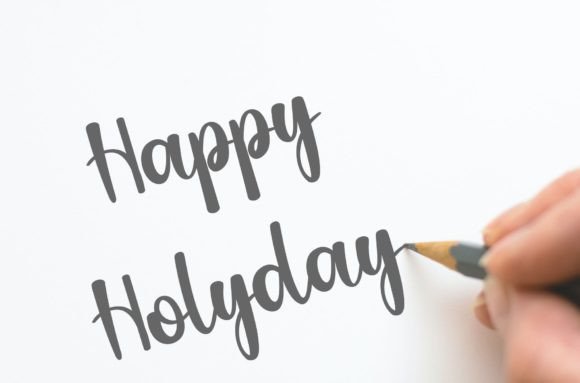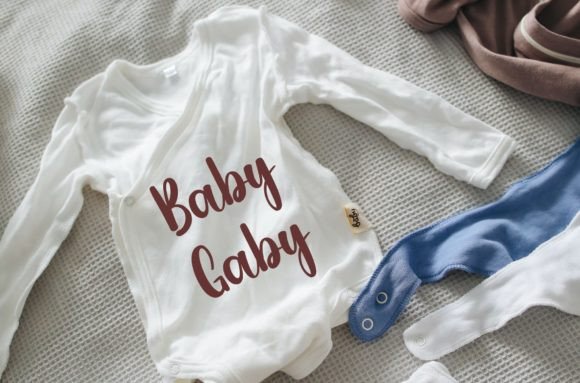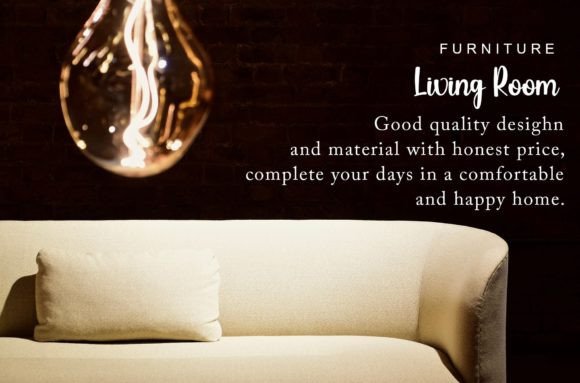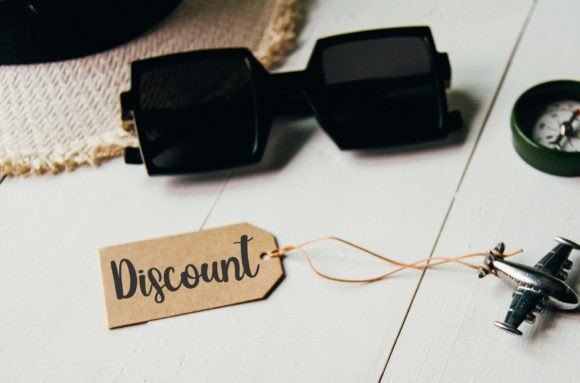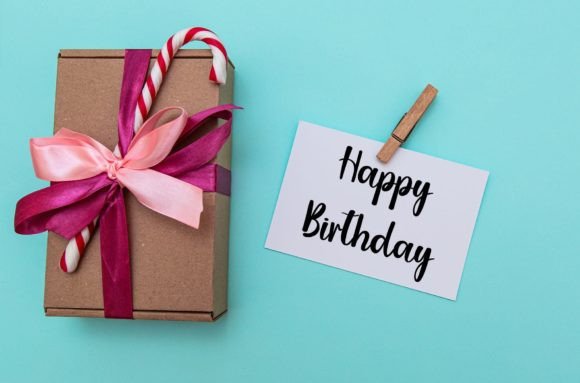
Pillow Font
About Pillow Font
“Pillow” is a delightful and friendly handwritten font that brings a sense of charm and uniqueness to your creative projects. With its playful style and warm appeal, this font transforms any design idea into a standout piece, inspiring creativity and infusing a touch of loveliness.
The distinctive charm of “Pillow” is evident in its handwritten strokes, creating an inviting and approachable aesthetic. Its friendly demeanor makes it a versatile choice for a variety of design applications, allowing you to explore different creative possibilities. Whether you’re crafting greeting cards, social media posts, or even designing merchandise, “Pillow” has the ability to bring a smile to your audience and create a lively atmosphere.
The font’s versatility extends beyond its visual appeal. “Pillow” is not just a typeface; it’s an invitation to explore creativity and express uniqueness. Its handwritten nature adds a personal touch to your designs, making them feel more genuine and relatable.
With “Pillow,” the creative process becomes an enjoyable journey. The font’s playful strokes and friendly curves open up opportunities to experiment with different design elements, colors, and layouts. As you work with “Pillow,” you’ll find that it adapts seamlessly to your creative vision, turning each project into a canvas for self-expression.
Furthermore, “Pillow” is designed to evoke a sense of warmth and approachability. Its friendly appearance makes it suitable for a broad audience, from children’s designs to more sophisticated projects. The font becomes a versatile tool in your creative toolkit, enhancing the visual impact of your work.
In the realm of digital and print design, “Pillow” stands out as a font that not only adds visual appeal but also conveys a mood of friendliness and creativity. Its unique charm inspires you to go beyond the ordinary, injecting a bit of playfulness into your designs and making them memorable.
Whether you’re a seasoned designer or someone exploring the world of creativity, “Pillow” is an excellent companion for your projects. It is more than just a font; it’s an expression of joy, creativity, and the art of making your designs stand out with a touch of loveliness.